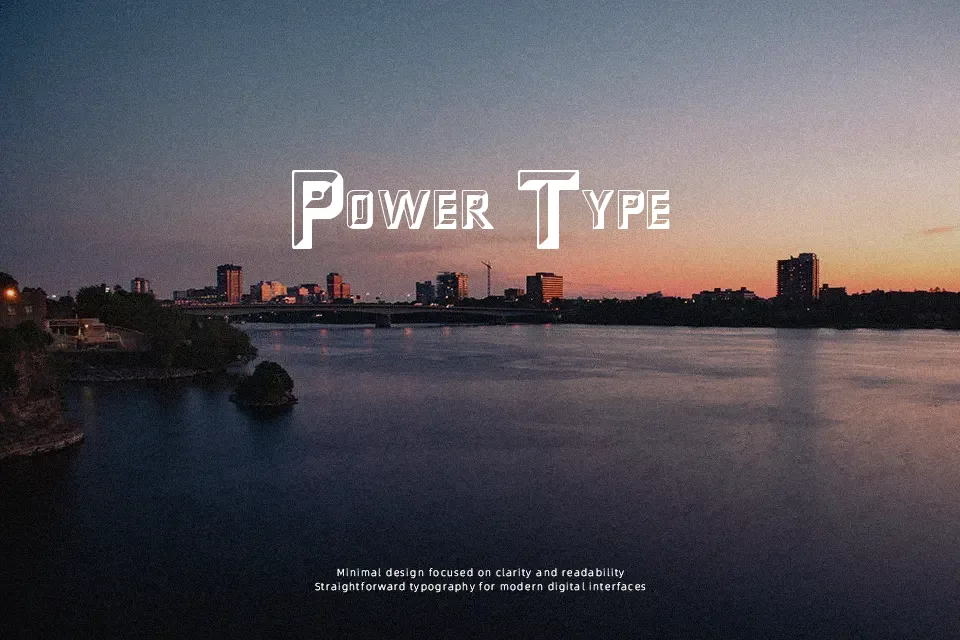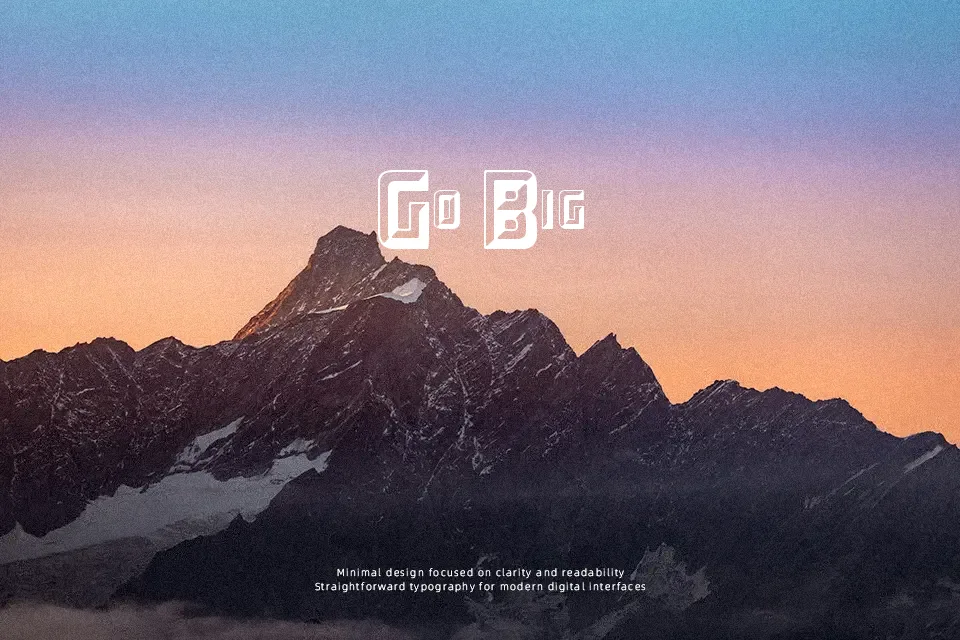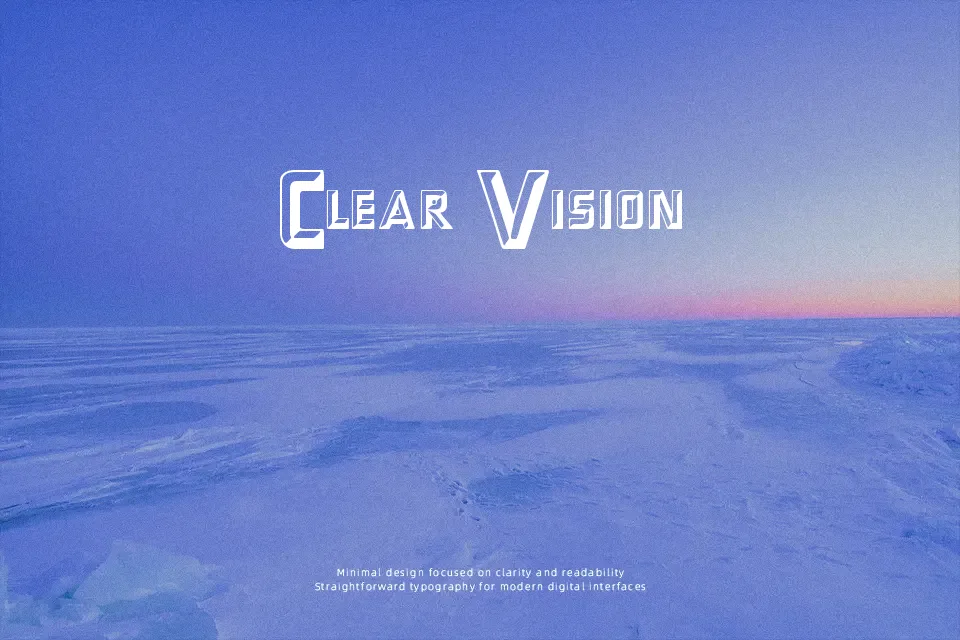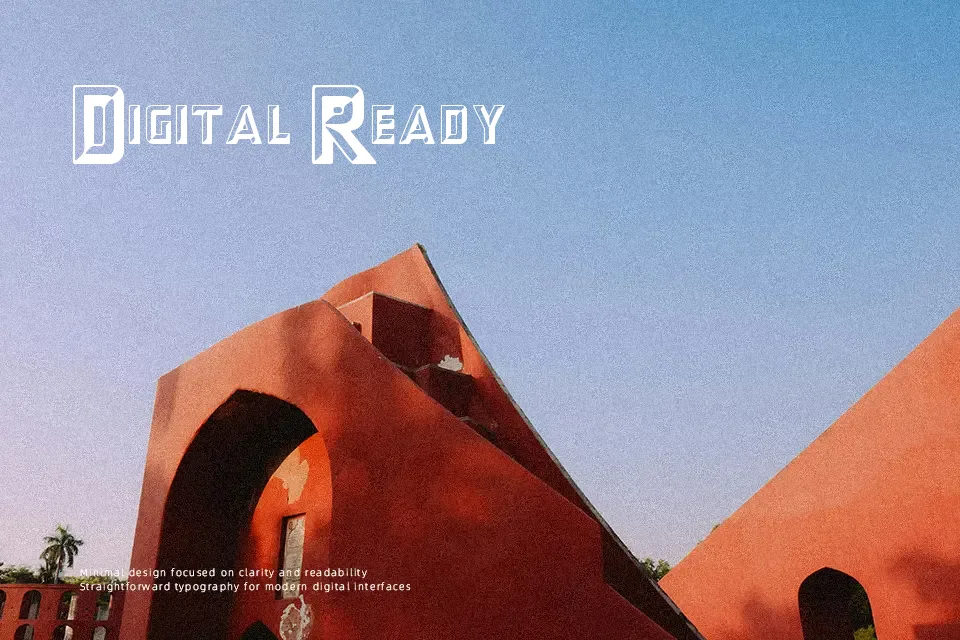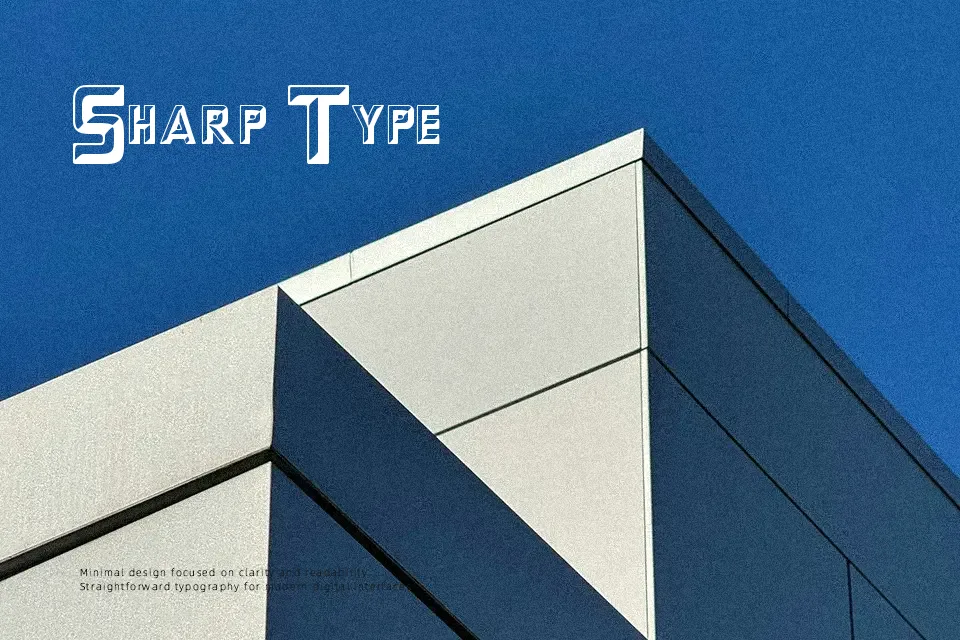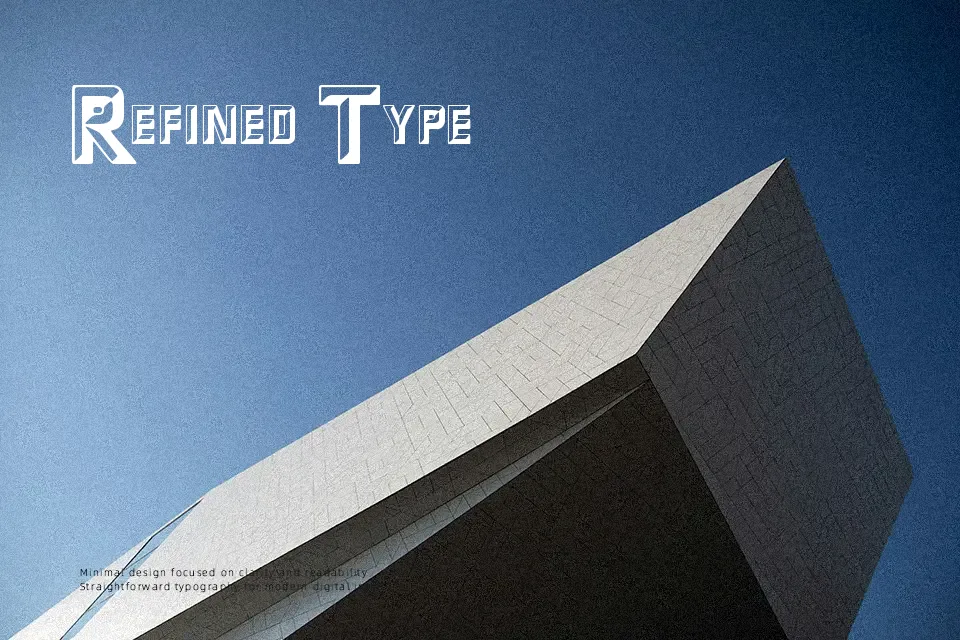
PopUps Font
A prominent three-dimensional structure defines the PopUps Font, offering an eye-catching approach to creative display typography. The letterforms feature thick, extruded shapes that create a pronounced sense of depth, rooted in a bold geometric foundation. Its solid proportions and tightly balanced spacing help maintain visual rhythm across large, impactful layouts. This typeface performs exceptionally well in retro gaming graphics, vibrant event posters, and bold product packaging where typography needs to stand out. However, the heavy three-dimensional shading significantly reduces legibility at smaller sizes, making it entirely unsuitable for continuous body text. The robust strokes ensure maximum visibility in large headlines, delivering a highly dynamic and structured visual presence.
retro gaming graphics
vibrant event posters
bold product packaging
dynamic headlines
continuous paragraph text
spreadsheet data